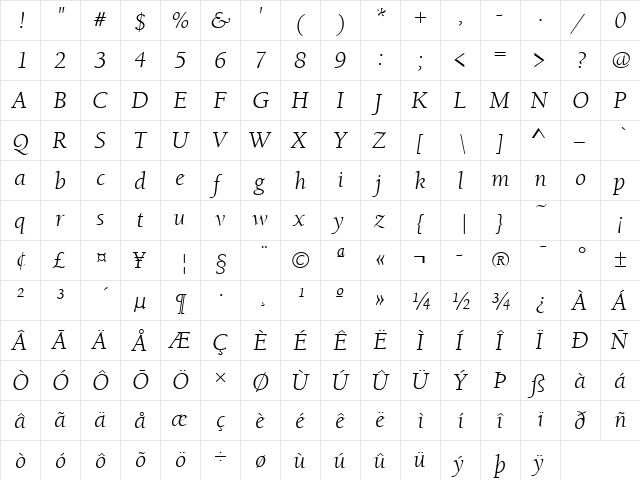
UniversityOldStyle Italic
Design Context for UniversityOldStyle Typeface
UniversityOldStyle brings classic typographic sensibility to the table — its serifs and measured letterforms reflect centuries of print heritage. The dynamic lean of this cut emphasises speed and emphasis in any layout.
Pro Tip: Use UniversityOldStyle for editorial body copy and considered headline work. Pair with a neutral sans for UI elements or captions to create a classic hierarchy.